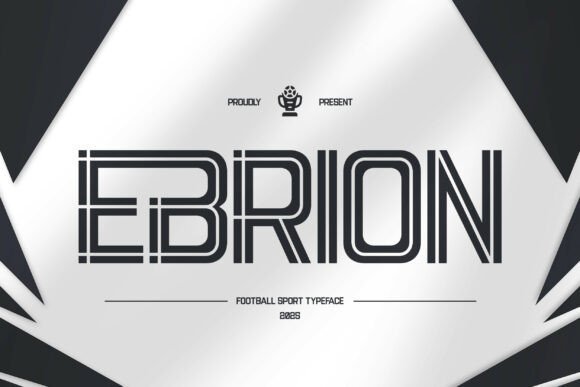
The Perfect Match: Unleashing the Power of Ebrion Font
As a designer, there’s no greater thrill than creating a visual identity that captures the essence of a sports team’s spirit. For me, that moment came when I was tasked with designing a football club’s branding. I spent hours pouring over fonts, searching for the perfect combination of style and intensity. And then, I stumbled upon Ebrion Font – a strong and dynamic display typeface designed specifically for football.
Ebrion Font is more than just a font; it’s a game-changer. With its bold structure, sharp lines, and athletic proportions, it delivers a powerful visual presence that commands attention. Whether you’re designing team logos, jerseys, posters, or match promotions, Ebrion Font brings a professional and high-impact look to any sports-related project. As a designer, you’ll appreciate its versatility and ability to elevate your designs to the next level.
Ebrion Font Key Features
- Font Family: Ebrion is a modern sans-serif font family, designed to be versatile and highly legible.
- Unique Characteristics: Ebrion features a unique blend of geometric and organic elements, resulting in a clean and sophisticated aesthetic.
Ebrion Font Review
As a designer, I’ve had the chance to work with many fonts, and Ebrion is one that caught my attention. Here’s my honest review.
- Unique and distinctive design: Ebrion has a distinct, modern feel to it, making it perfect for branding and design projects that require a bold statement.
- High legibility: The font is highly legible, even at smaller sizes, which is essential for body text and other text-heavy elements.
- Good for digital use: Ebrion works well in digital formats, including web and mobile applications.
- Limited language support: Ebrion only supports Latin-based languages, which may be a limitation for projects requiring multilingual support.
- May not be suitable for small text: While Ebrion is highly legible, it may not be the best choice for very small text sizes, where other fonts may be more suitable.
- Not as versatile as some other fonts: Ebrion is a bold, modern font, which may not be suitable for all design projects or styles.
Ebrion is a solid choice for designers looking for a modern, bold font. While it has some limitations, its unique design and high legibility make it a great option for the right projects. Just be sure to consider its limitations and choose it wisely.
Getting the Most Out of Ebrion Font
For the best results, use Ebrion font with a clean and minimalistic design. This font is ideal for creating a professional and elegant look.
Ebrion font is commonly used for:
- Corporate branding and marketing materials.
- Editorial and publishing projects.
Alternatives to Ebrion Font
Montserrat is a modern sans-serif font designed by Julieta Ulanovsky. It’s ideal for use in digital and print media, particularly in headings and titles. Montserrat is more geometric and has a stronger emphasis on structure compared to Ebrion Font, which has a more rounded feel.
Inter is a sans-serif font designed by Rasmus Andersson. It’s a highly legible and versatile font suitable for use in a wide range of applications, from body text to headings. Inter has a more neutral and clean aesthetic compared to Ebrion Font, which has a more distinctive character.